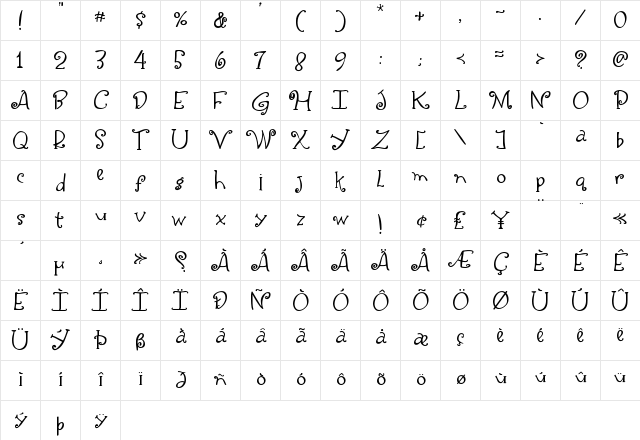
Yippy Skippy Alt Regular Free Font
Yippy Skippy Alt Regular
Design Context for Yippy Skippy Alt
Yippy Skippy Alt is a composed and adaptable typeface that performs quietly and consistently across a wide range of design contexts.
Pro Tip: Use Yippy Skippy Alt in both headline and body roles to test its range before committing to a single application.